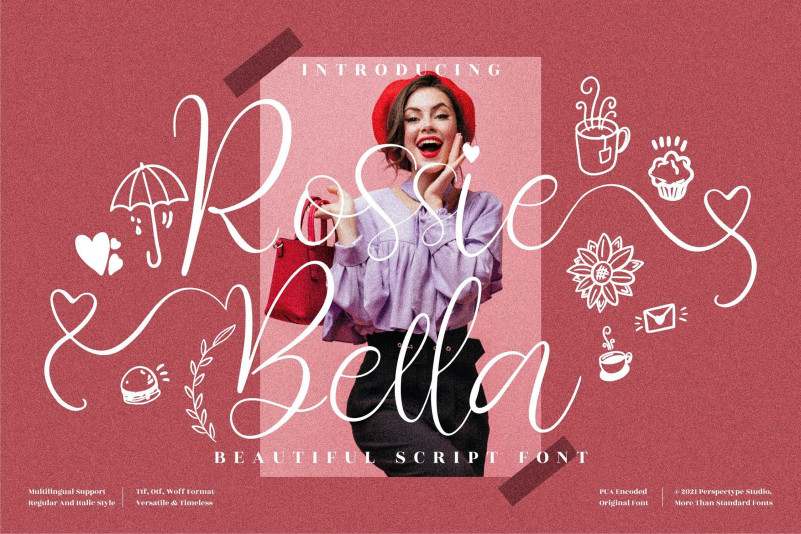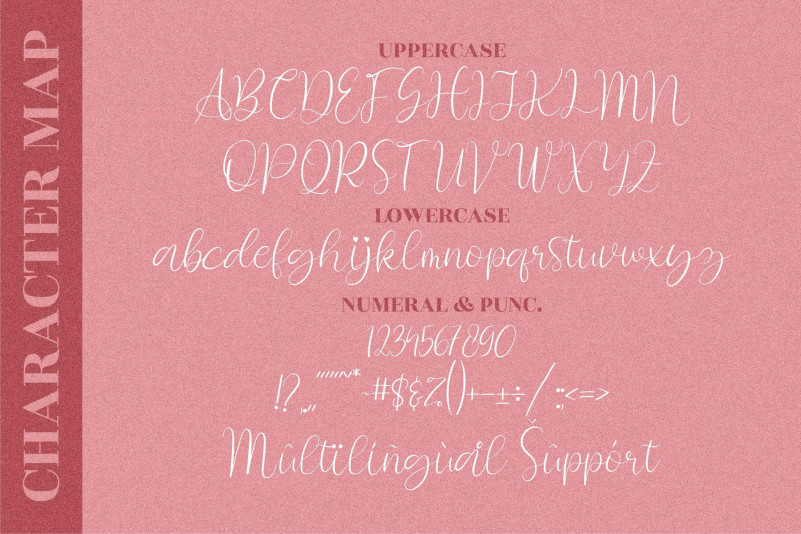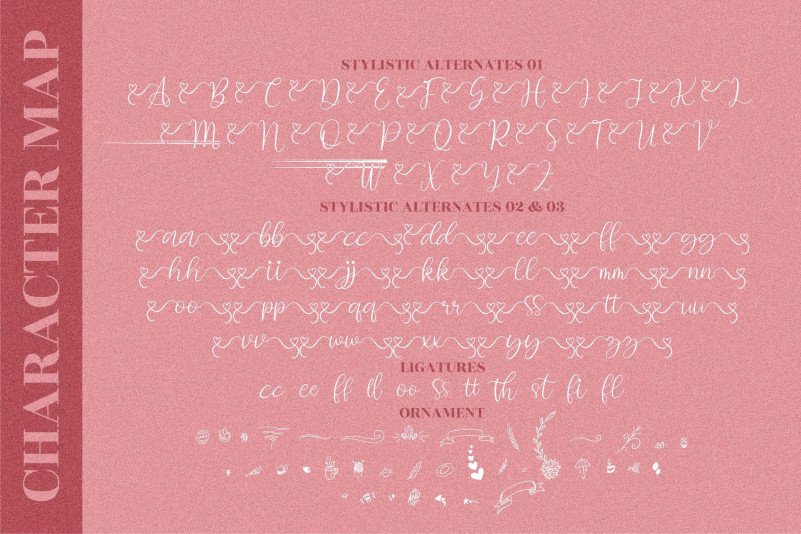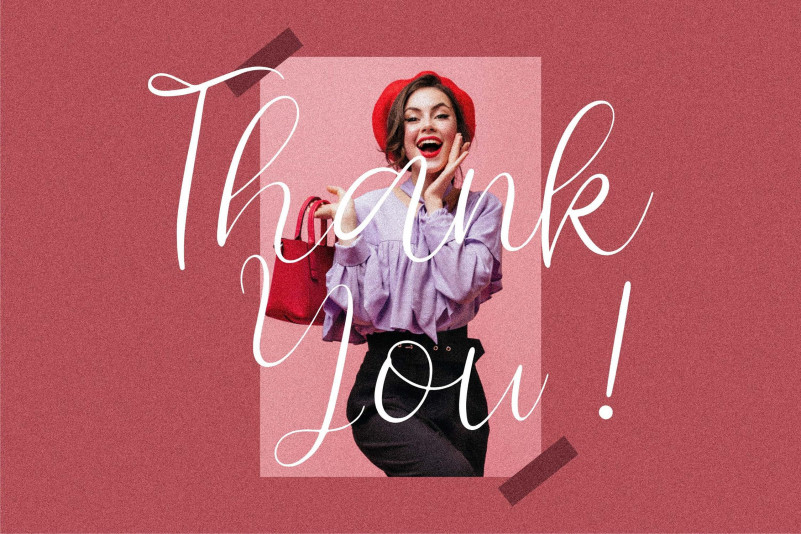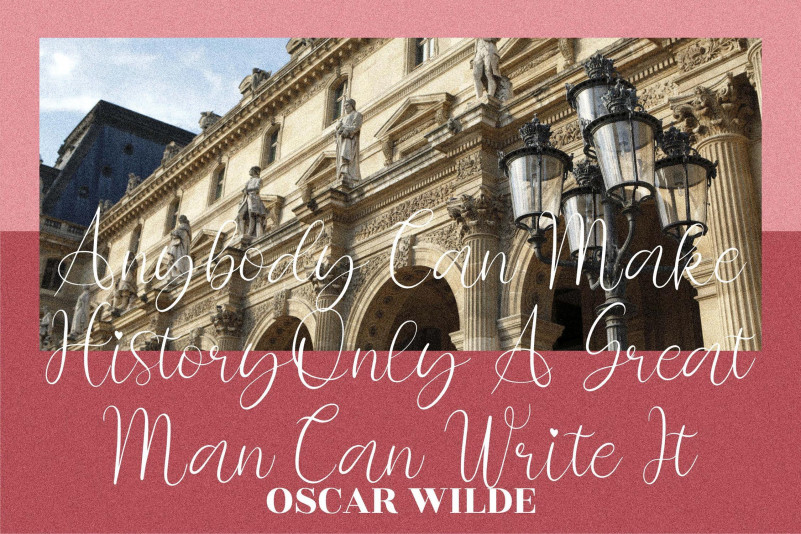
Rossie Bella Font
Rossie Bella Calligraphy Font
This is a romantic and dainty calligraphy typeface with characters that dance along the baseline. It will add a luxury spark to any design project that you wish to create!
Rossie Bella Calligraphy Font is PUA encoded which means you can access all of the amazing glyphs and ligatures with ease!